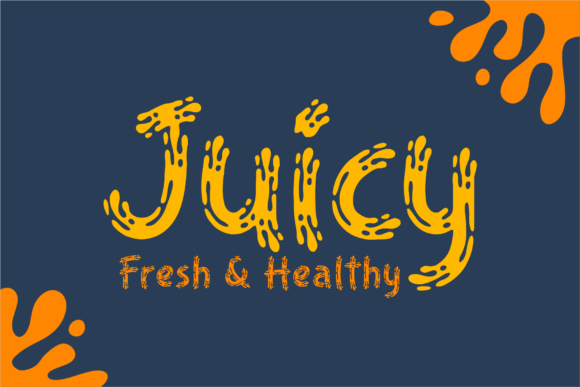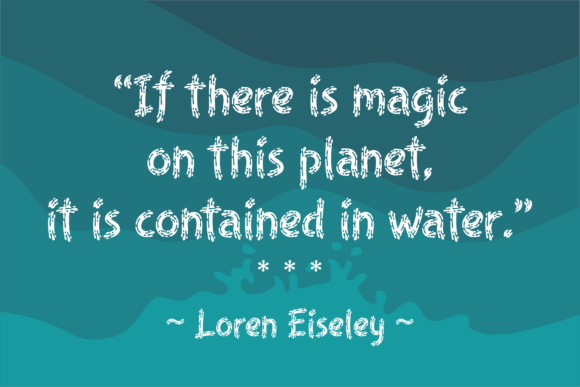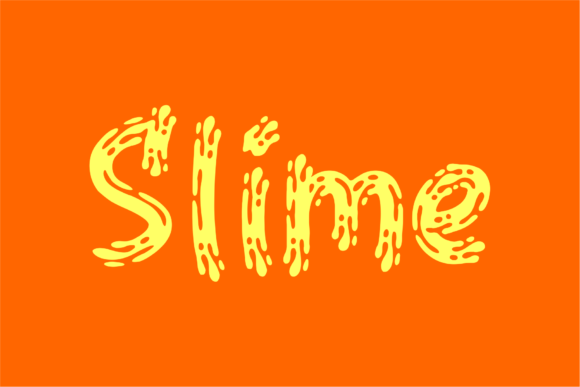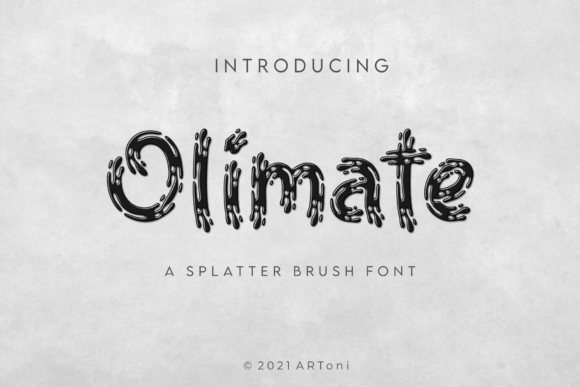
Introduction to Olimate Font
Olimate is a cool, summer inspired decorative font, featuring characters made entirely out of tiny splashes.
Add this font to your most creative ideas, and notice how it makes them stand out .
Olimate Font offers exceptional quality and versatility, making it a valuable addition to your design toolkit. Whether you’re creating for personal projects or commercial use, Olimate Font delivers professional results.